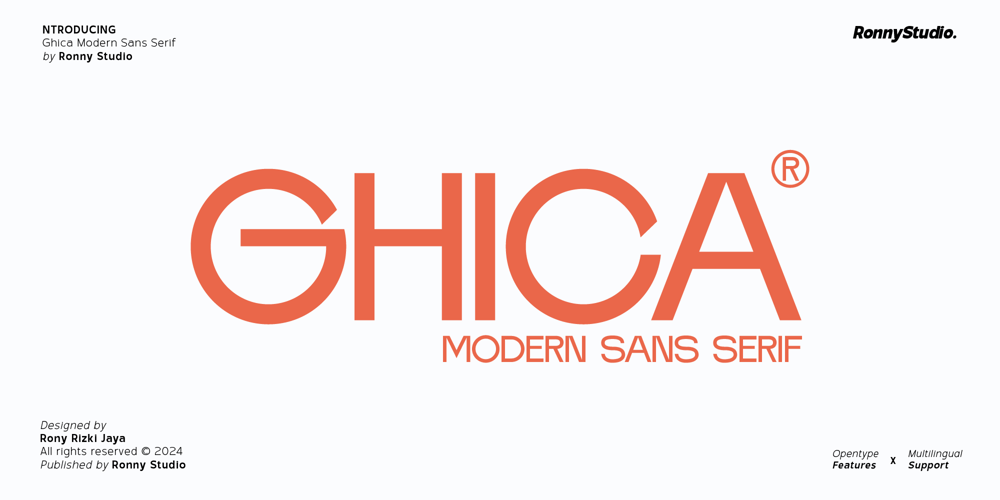
Ghica Font Family was designed by Rony Rizki Jaya and published by Ronny Studio. Ghica contains 1 styles and family package options. Ghica is a modern sans-serif font. With a clean, minimalist and elegant design, Ghica offers a modern and professional impression, suitable for various design needs such as branding, posters, web design and print media.Features :- Uppercase & Lowercase- numbers & punctuation- Ligature & Alternate- Multilingual- PUA encodedPlease contact us if you have any questions. Enjoy Crafting and thanks for supporting us! :)Thank you